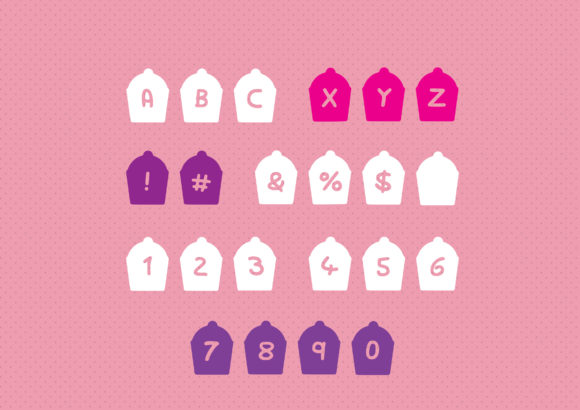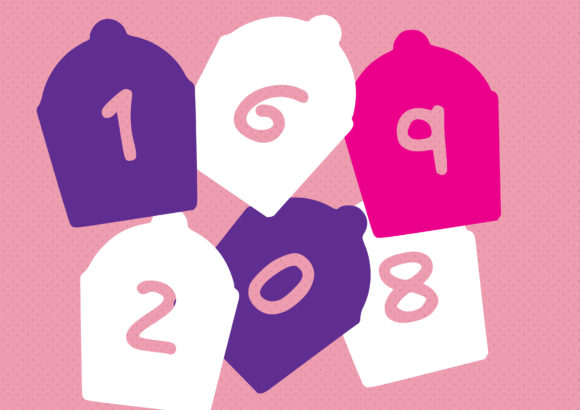
Introduction to Play Cupcake Font
Play Cupcake is a set of sweet baked treats with a playful, child-like decorative font.
It is perfect to spell out anything to do with cupcakes Handwritten with rounded sides make it a friendly and joyful font.
Key Features of Play Cupcake Font
Why Choose Play Cupcake Font?
Play Cupcake Font offers exceptional quality and versatility, making it a valuable addition to your design toolkit. Whether you’re creating for personal projects or commercial use, Play Cupcake Font delivers professional results.